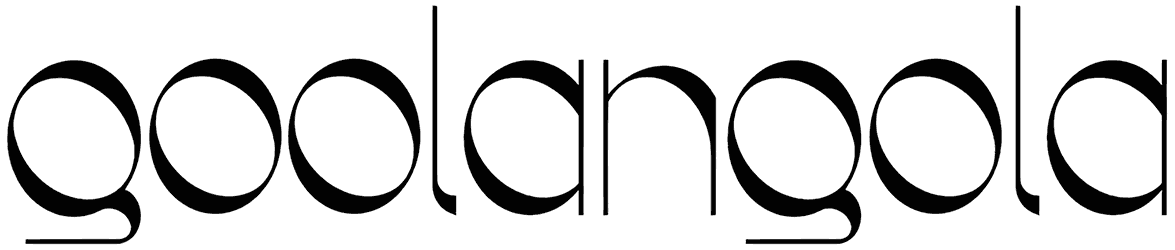
Goolangola Font
Goolangola by exceptional circles in some letters and straight lines in other letters is ideal for advertisements to make your brand prominent. Interlaced circles in the background have emphasized its incomparability.
Furthermore, its sophisticated and timeless design gives the chance to create logos, banners, badges as well as branding. The classic shapes result in specifying magazine titles. Uppercase letters and numbers are not supported by this poster font. Remind that it is presented in two weights.